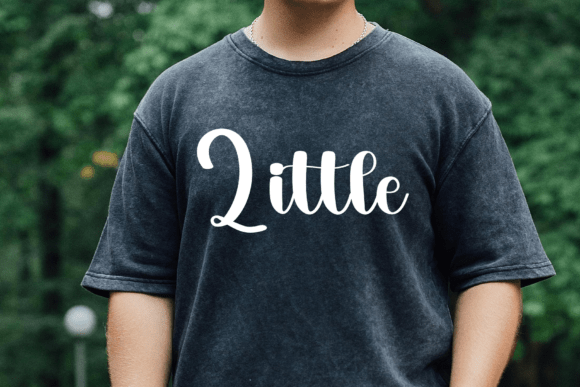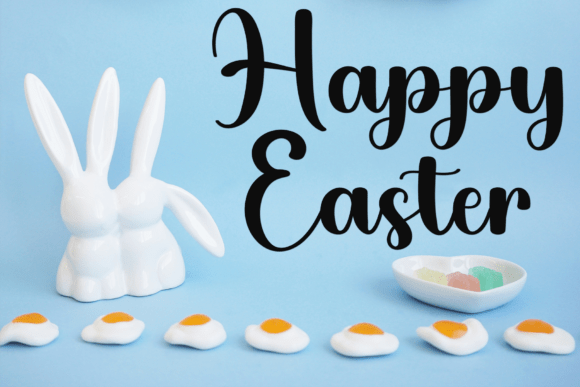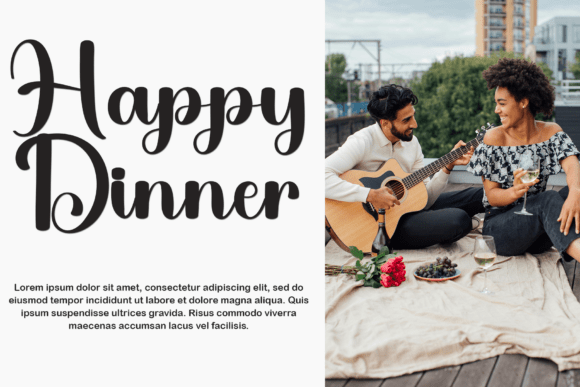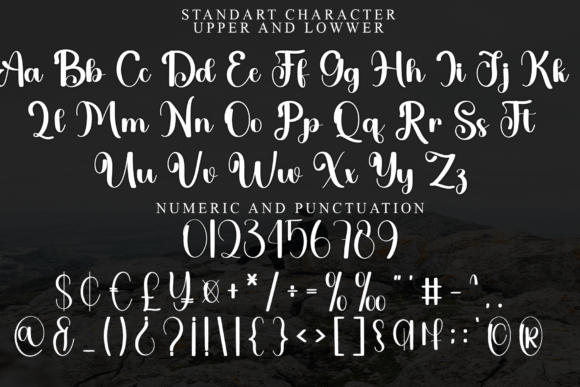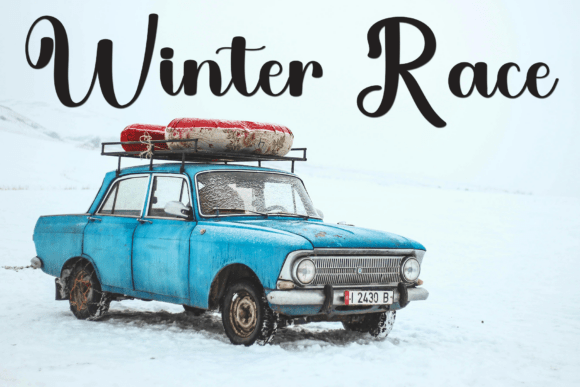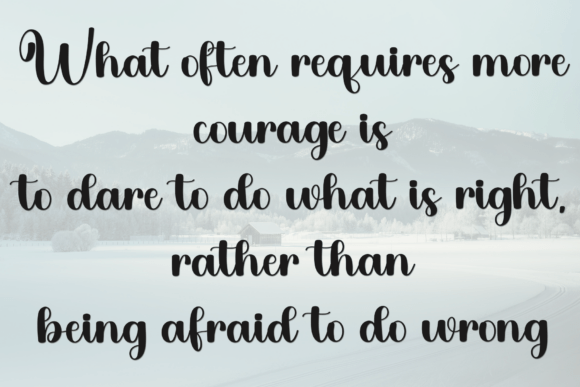
Casting Font: Elevate Your Designs with a Unique and Versatile Typeface
In the world of typography, a font can make or break a design project. That’s why designers and crafters are always on the lookout for unique and eye-catching typefaces that can add a special touch to their creations. One such font that has been making waves in the design community is Casting Font. With its soft, distinctive strokes and versatile nature, Casting Font is perfect for a wide range of design projects, crafts, and creative works.
A Beautiful and Unique Font
Casting Font is a beautifully designed font that boasts a soft, unique touch. Its distinctive strokes give it a special character, making it stand out from other fonts in the market. The font’s natural and effortless style makes it perfect for designers who want to add a personal touch to their projects. Whether you’re working on a logo, brochure, or website, Casting Font is sure to make your designs more appealing and engaging.
One of the best things about Casting Font is its versatility. With a wide range of characters, this font is perfect for various design projects, crafts, and creative works. Whether you’re a graphic designer, crafter, or artist, Casting Font can be used to create stunning designs that cater to different artistic and creative fields. From stationery and packaging to advertising and branding, the possibilities are endless with Casting Font.
Ideal for Design Projects and Crafts
Casting Font is perfect for a wide range of design projects, including:
- Graphic design: logos, brochures, posters, and more
- Crafts: handmade cards, scrapbooking, and DIY projects
- Web design: websites, blogs, and social media graphics
- Advertising: print and digital ads, flyers, and banners
- Branding: packaging, labels, and product design
With Casting Font, designers and crafters can create stunning designs that are sure to capture the attention of their audience. The font’s unique and eye-catching style makes it perfect for projects that require a personal touch.
Why Choose Casting Font?
So, why choose Casting Font over other fonts in the market? Here are a few reasons:
- Unique and eye-catching style: Casting Font’s distinctive strokes and soft touch make it stand out from other fonts.
- Versatility: With a wide range of characters, Casting Font can be used for various design projects, crafts, and creative works.
- Ideal for design projects and crafts: Casting Font is perfect for graphic design, crafts, web design, advertising, branding, and more.
In conclusion, Casting Font is a beautiful and eye-catching font that is perfect for designers and crafters who want to add a unique touch to their projects. With its soft, distinctive strokes and versatile nature, Casting Font is ideal for a wide range of design projects, crafts, and creative works. Its compatibility and accessibility make it easy to incorporate into your workflow, and its unique style is sure to make your designs more appealing and engaging. So, if you’re looking for a font that can elevate your designs and take them to the next level, look no further than Casting Font.